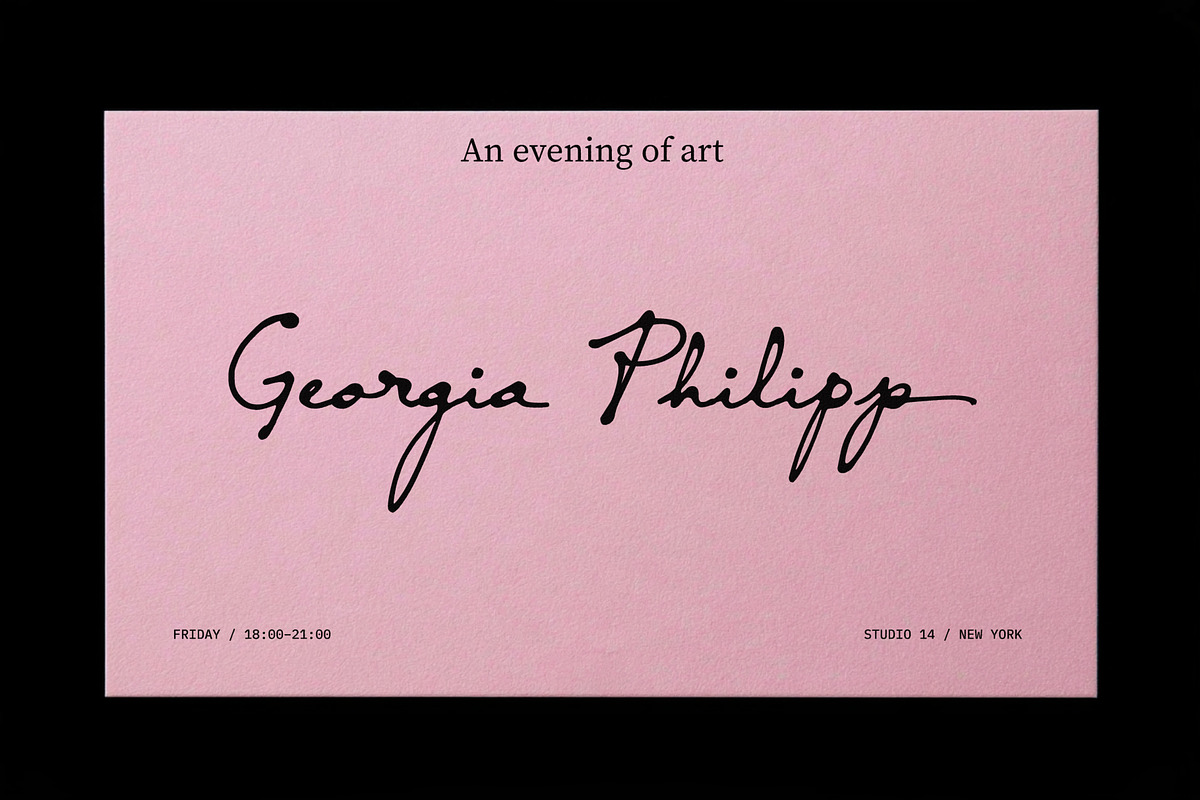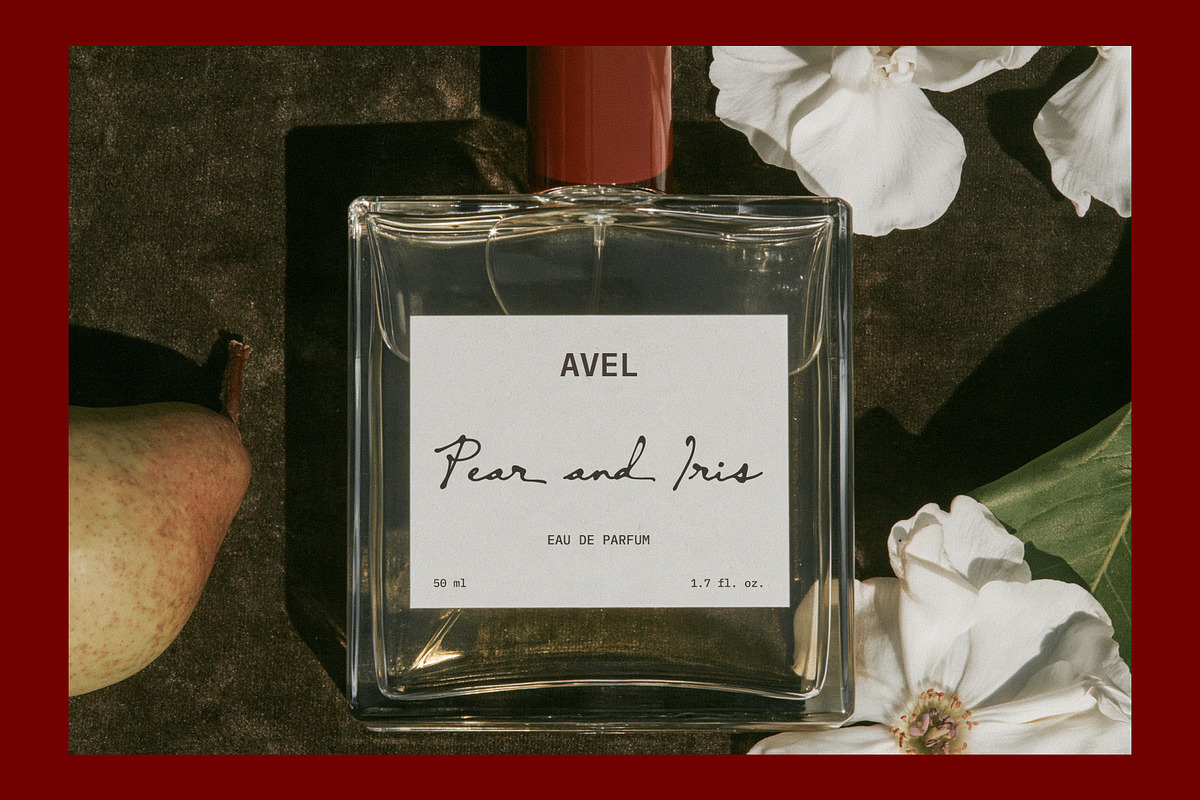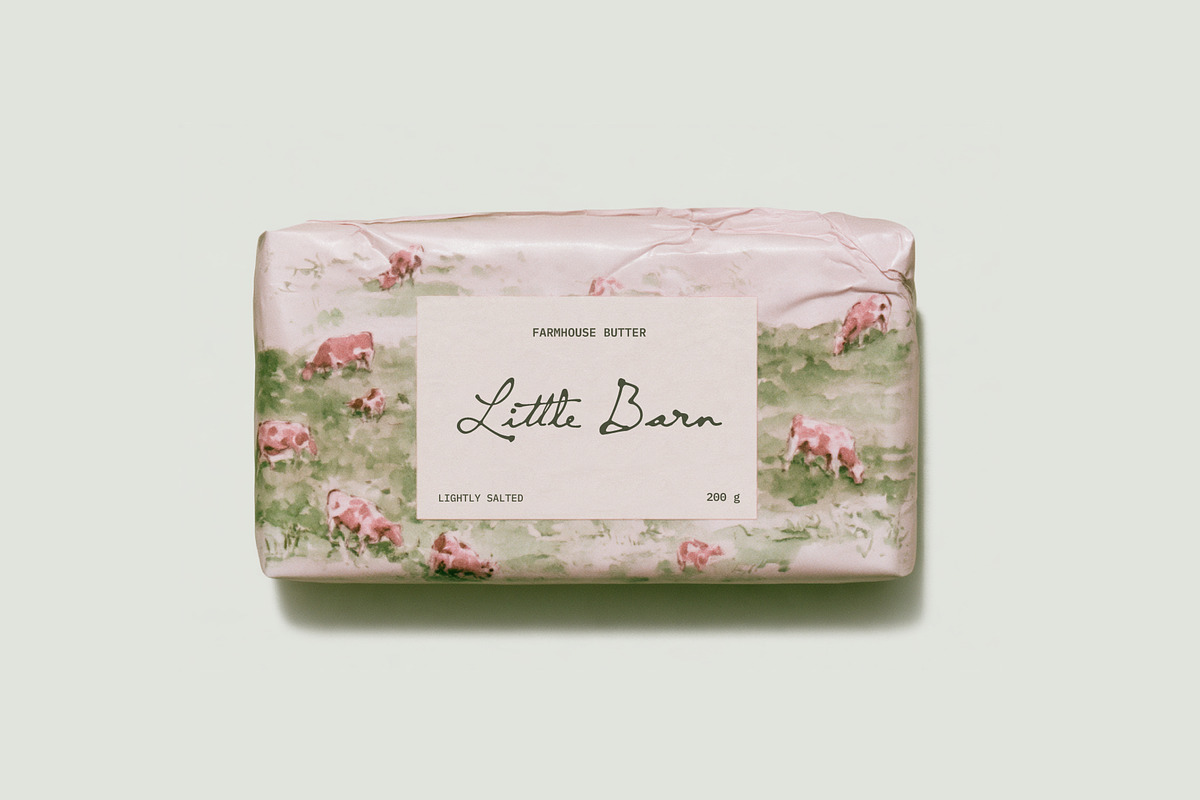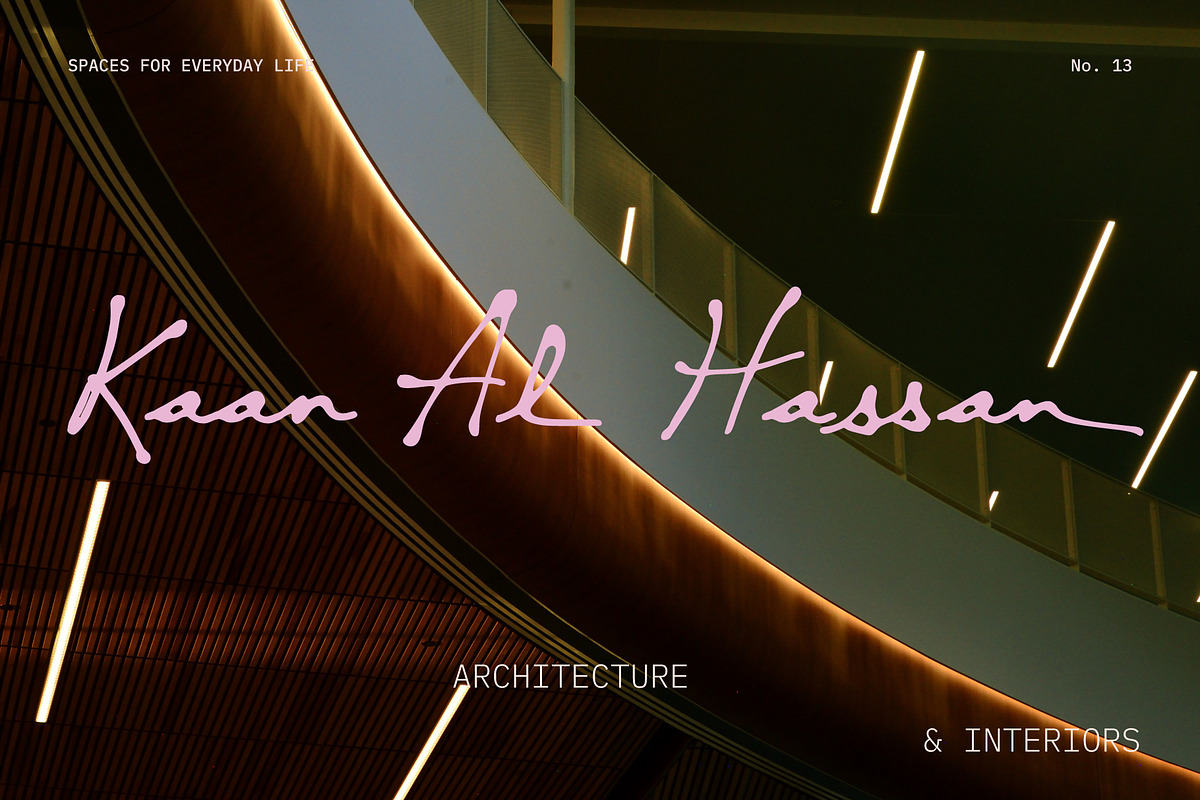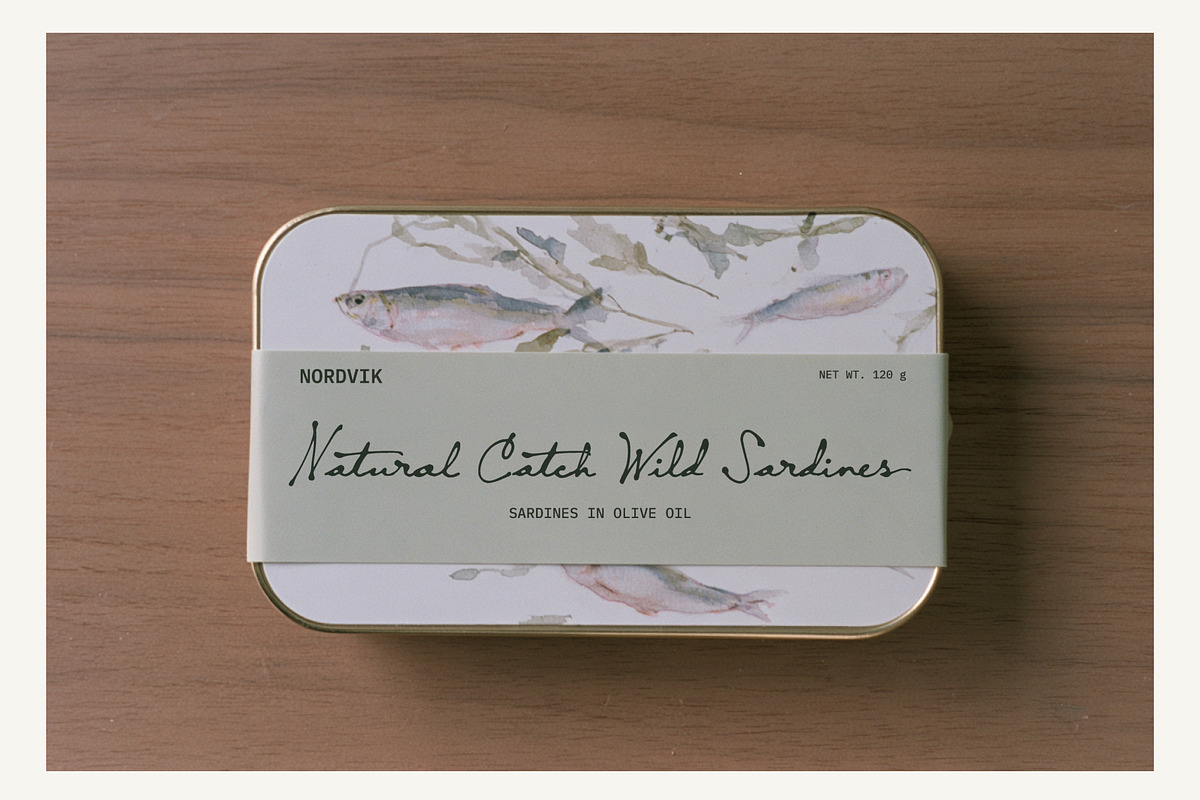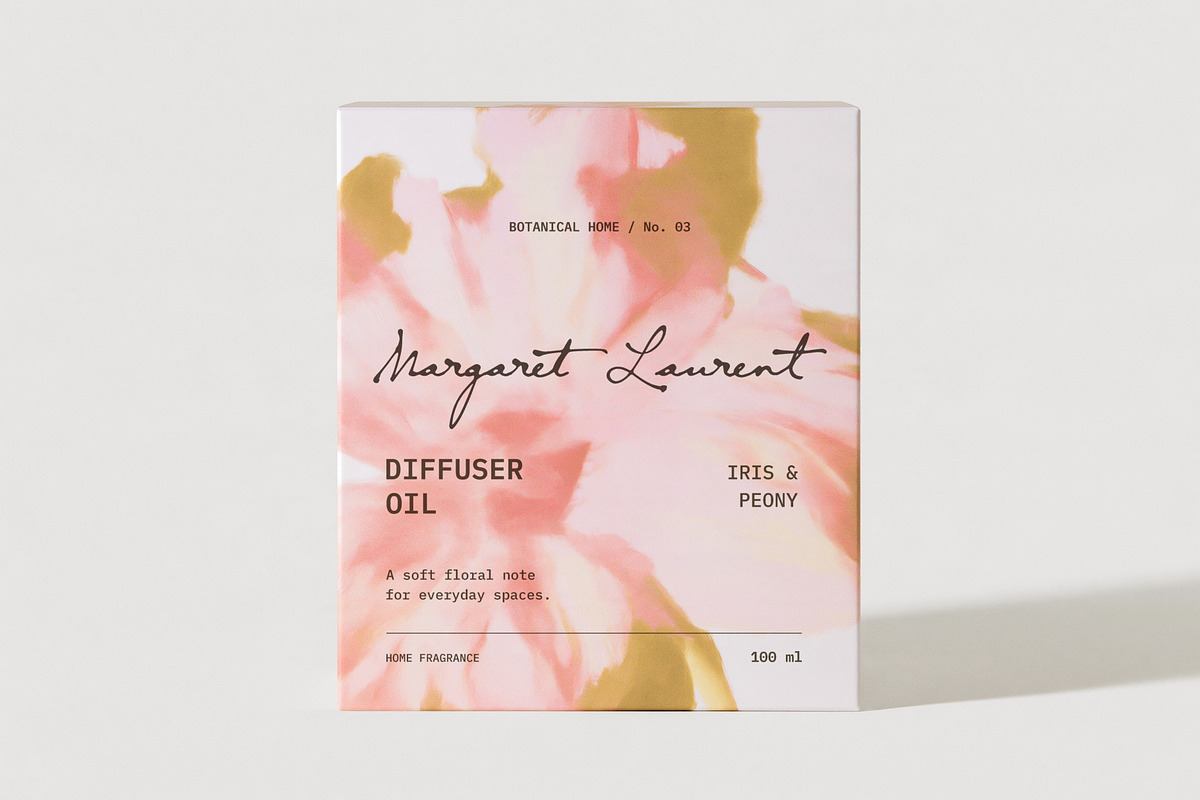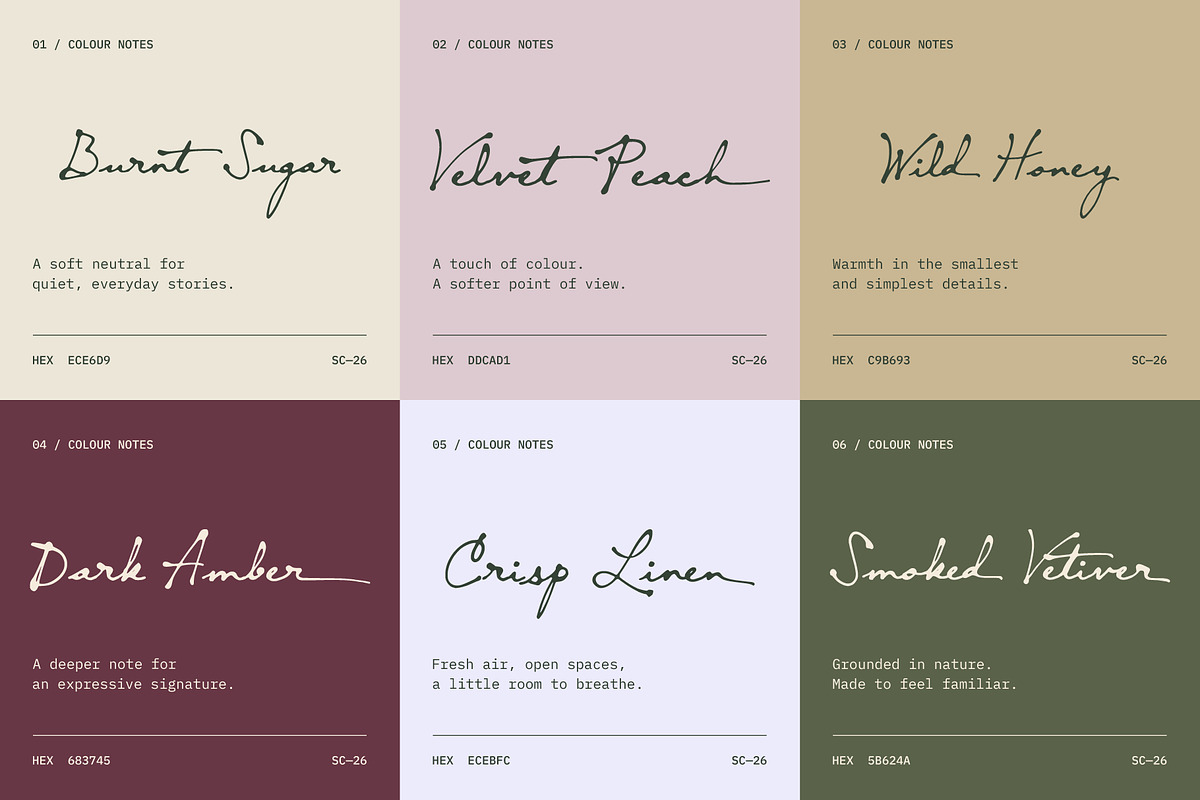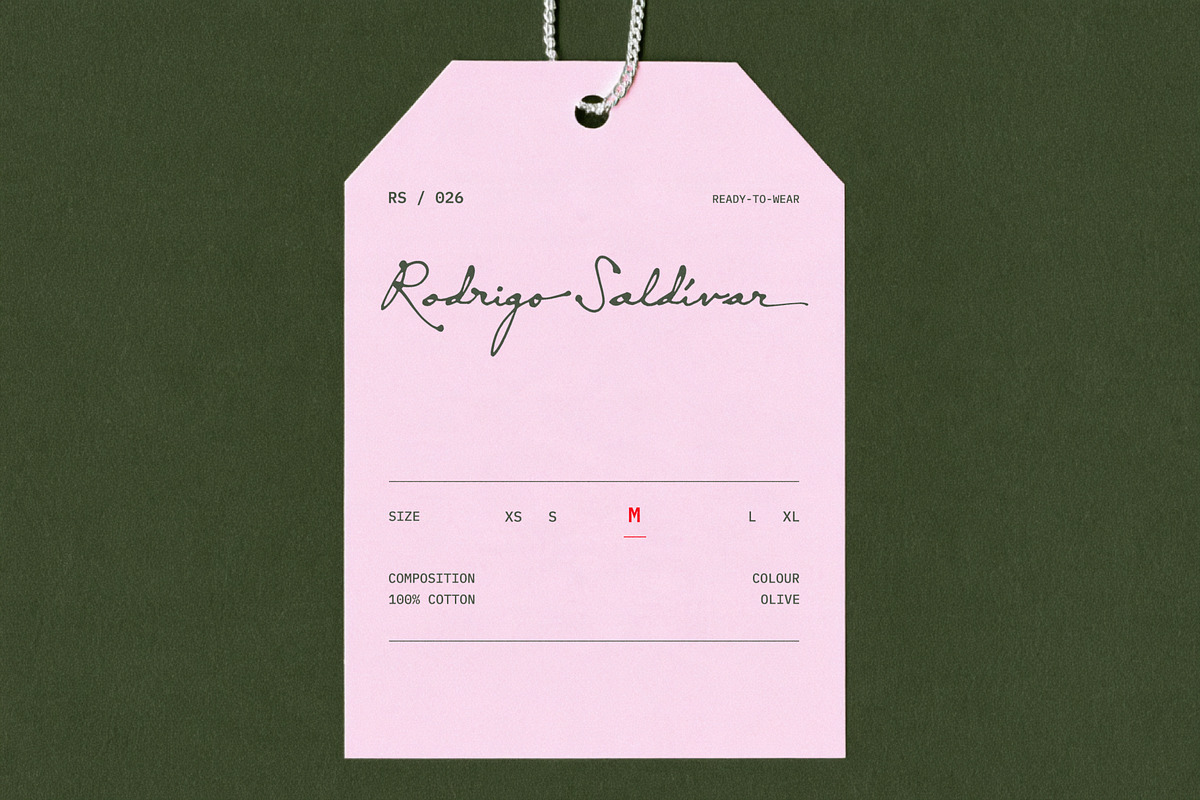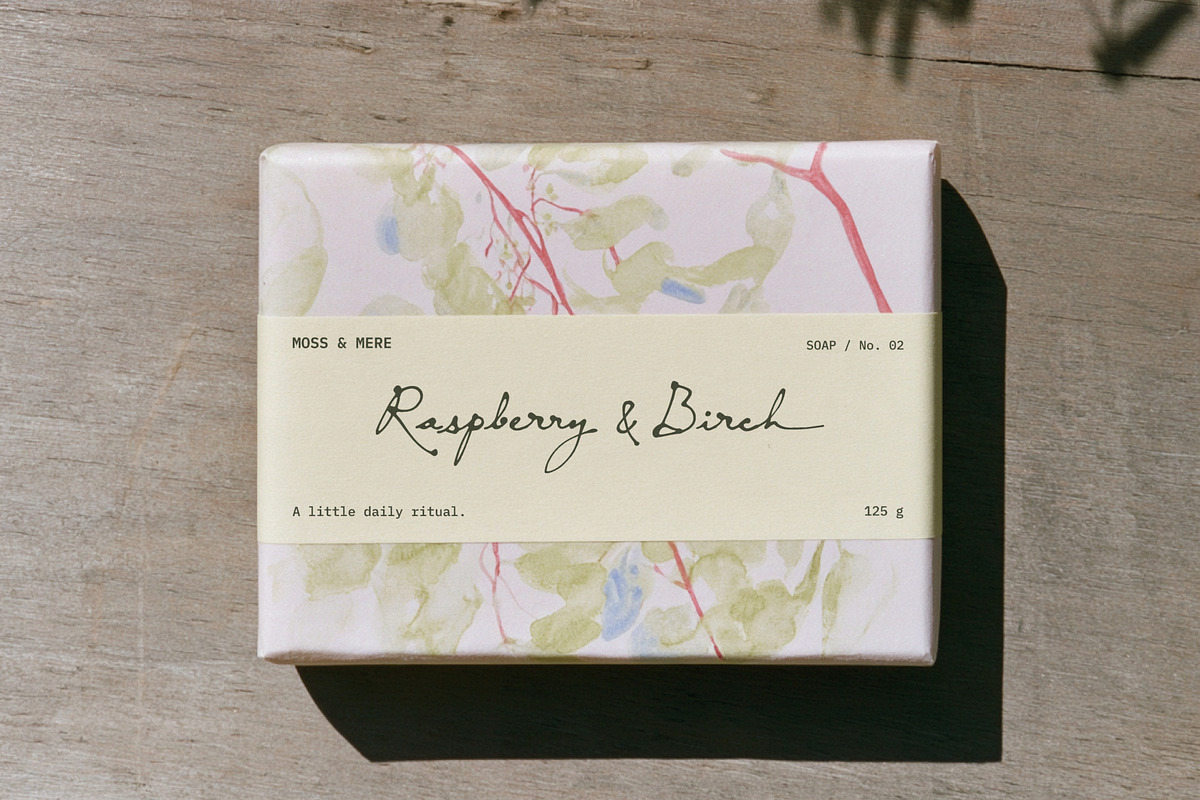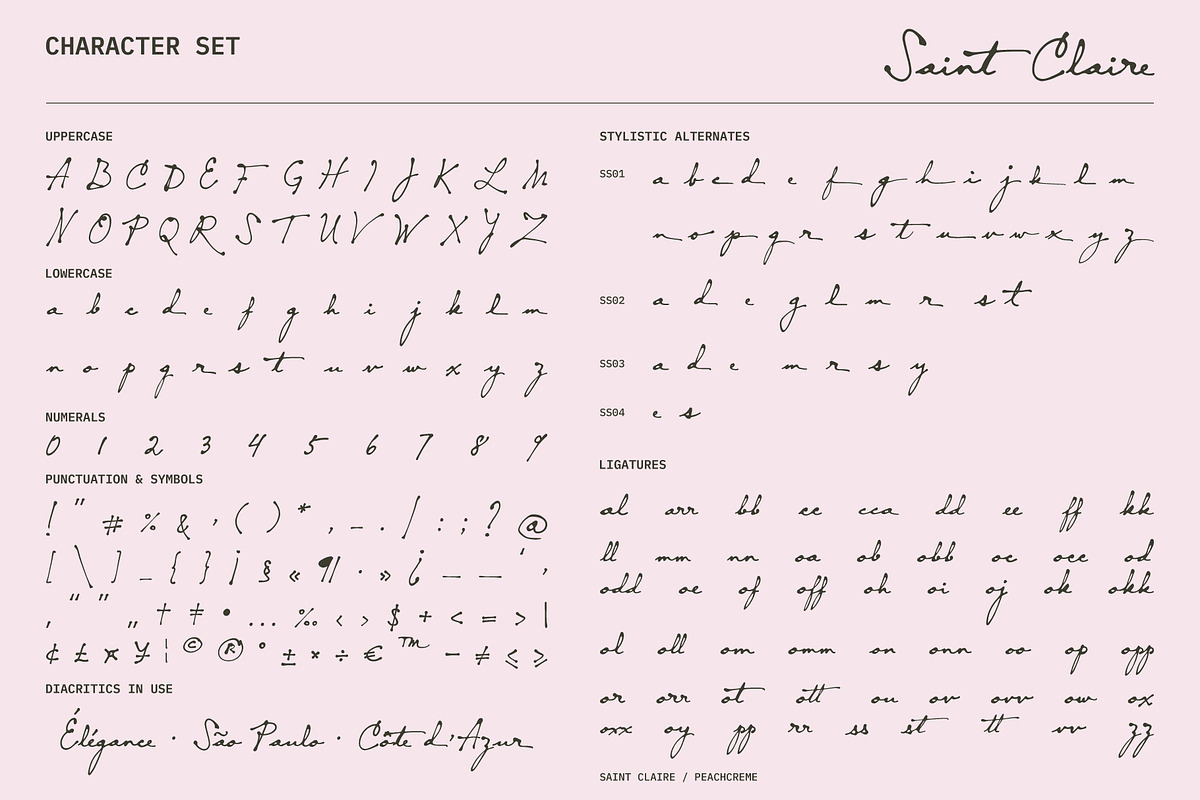
Saint Claire // Signature Script
Saint Claire is a handwritten signature font born out of a simple need in my own design practice.
Looking through my previous script fonts, I noticed a pattern: most of them are very delicate and thin. While I love that airy feel, they don't always perform well when used at smaller sizes (like on subtle product packaging, tin labels, or small stationery tags).
I wanted to build a script that stays legible and full of character, even when scaled down.
About alternative glyphs. I didn't try to make them all uniform or balanced, some are a bit larger, some smaller, depending on what felt natural and useful for frequent words. Please check the preview image to see how they look together.